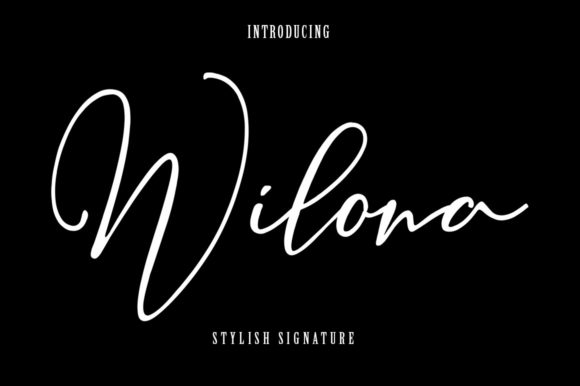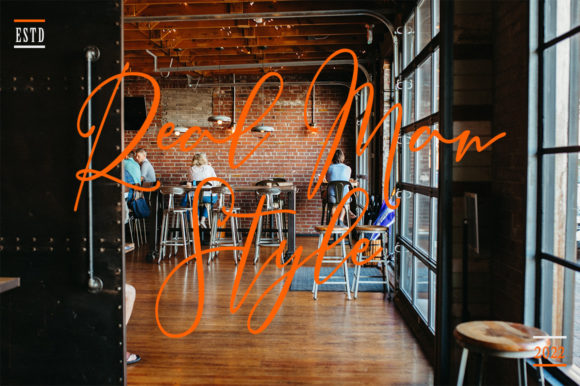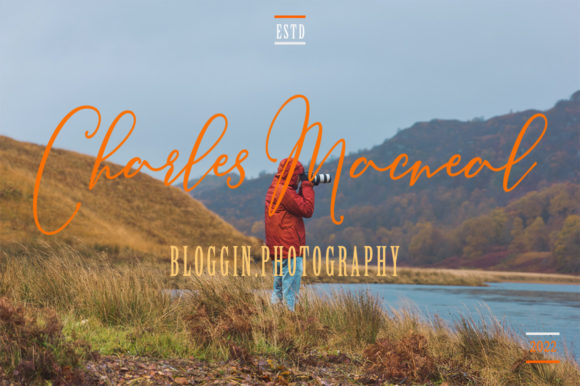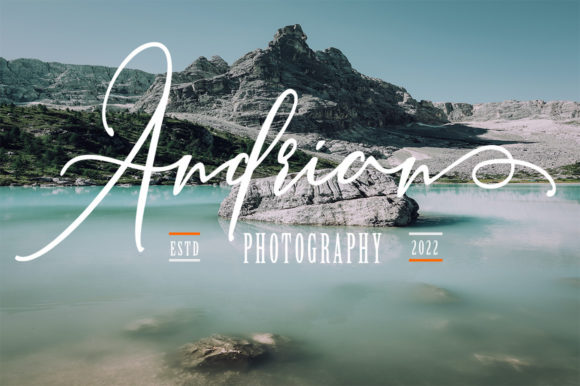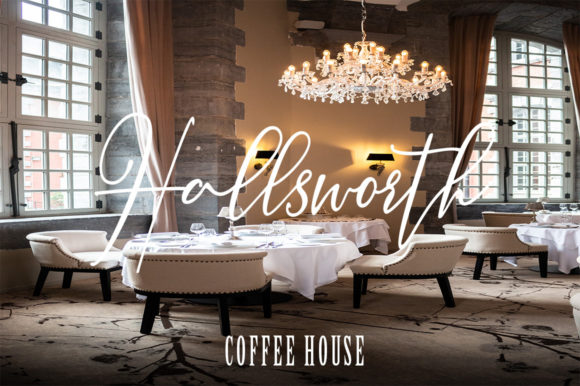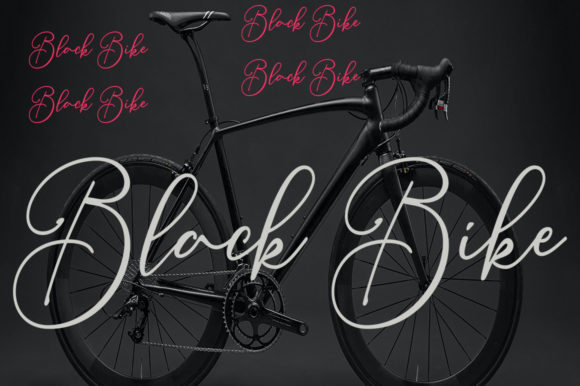
Wilona Font
About Wilona Font
**Wilona** emerges as a font that effortlessly blends charm and elegance, making it a stunning choice for a variety of designs. Whether gracing wedding invitations, thank you cards, quotes, greeting cards, logos, business cards, or any project in need of a handwritten touch, Wilona stands ready to elevate your creations with its unique and versatile style.
The charm of Wilona is apparent in its carefully crafted characters that exude warmth and friendliness. The font’s design brings an inviting and approachable quality, making it well-suited for projects that aim to create a connection with the audience. From thank you cards to greeting cards, Wilona adds a delightful touch to expressions of gratitude and warmth.
In wedding invitations, Wilona shines with its elegant appearance, contributing to the overall romantic atmosphere. The font’s handwritten touch brings a personalized and sophisticated quality to the invitations, making them a visual highlight of the celebration. Its versatility extends to quotes and various design applications, where it effortlessly complements the content.
The inclusion of PUA encoding in Wilona enhances its accessibility, allowing you to easily access all glyphs and swashes. This user-friendly feature simplifies the process of incorporating special characters and variations, providing a seamless experience for designers seeking to explore the font’s full range of expressive elements.
In essence, Wilona goes beyond being just a font; it becomes a design companion that effortlessly balances charm and elegance. Embrace the charm and sophistication that Wilona brings to your projects, whether it’s a wedding invitation, thank you card, quote, or any design in need of a handwritten touch. Let Wilona enhance your creations with its unique and captivating style.